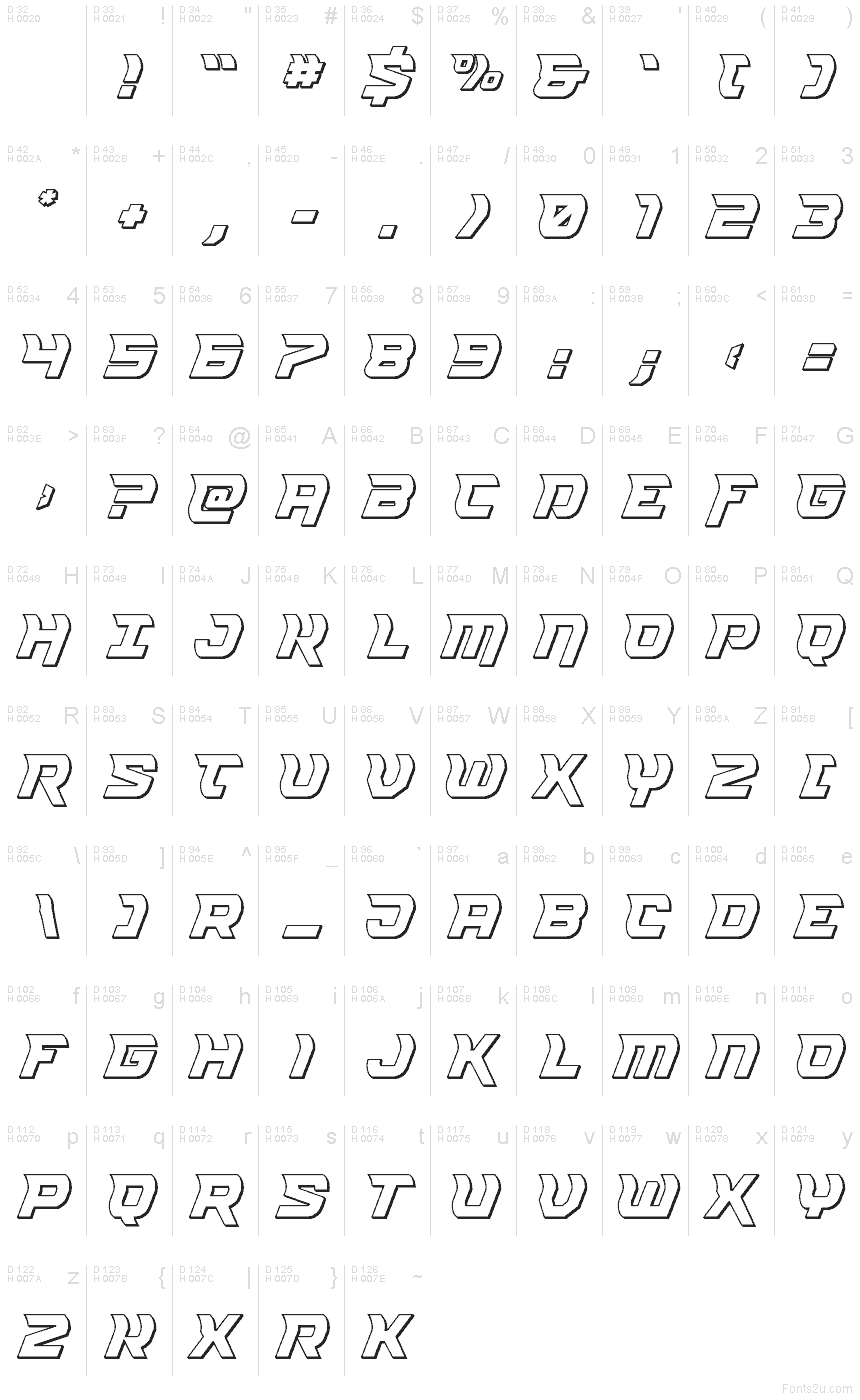
Renegent 3D
Renegent 3D font by Iconian Fonts is a futuristic display font with a bold and angular style. Its geometric shapes give it a modern aesthetic, characterized by sleek lines and a techno vibe. This font stands out with its unique visual appeal, making it perfect for eye-catching designs.